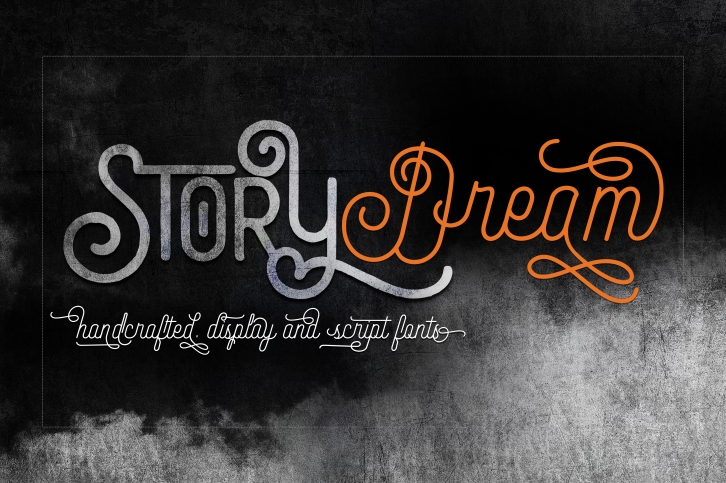
Story Dream, Script & Display is a great font that was designed by joelmaker. Imagine the amount of combinations you can create using this font! The archive is 12.94 MB and it was released on July 15, 2017. Story Dream, Script & Display looks beautiful on wedding invitations, greeting cards, logos, posters, labels, t-shirt designs, logos, business cards and is perfect for use in ink or watercolor works, fashion, magazines, packaging and food menus, children's books and more!